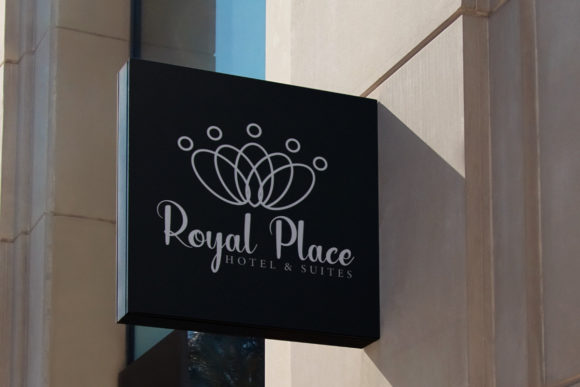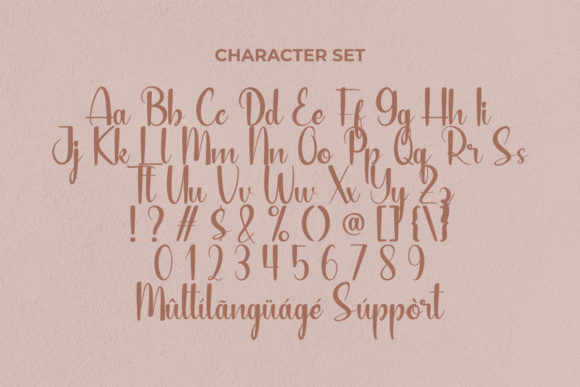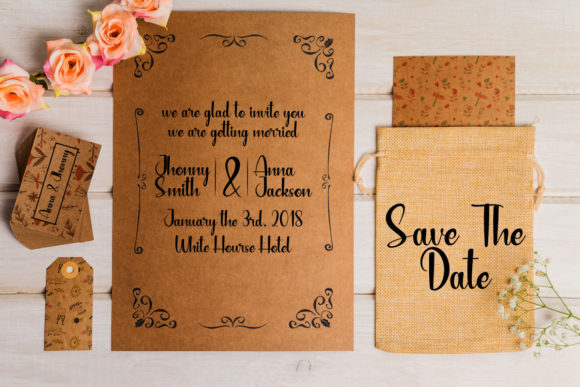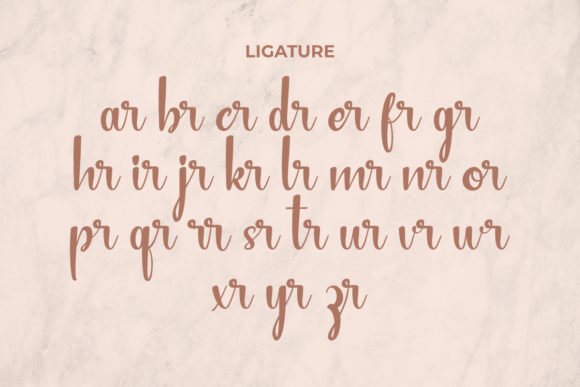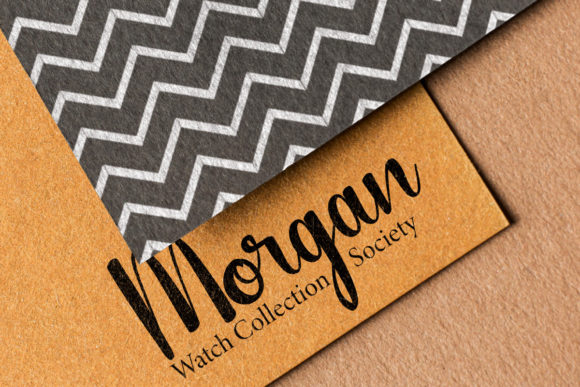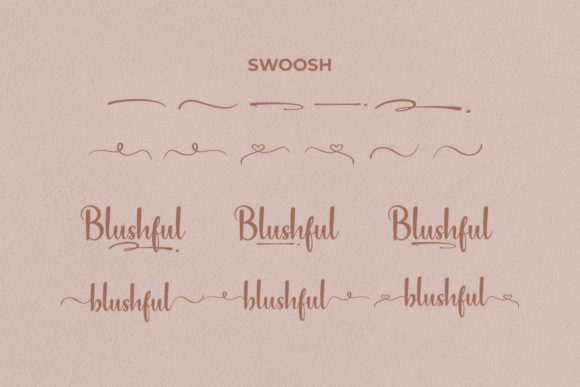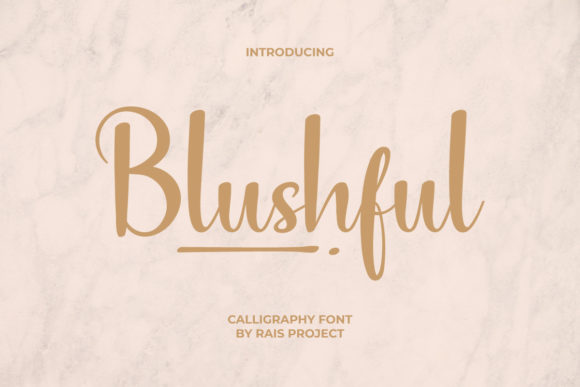
The Blushful Font: A Timeless Choice for Charming Designs
An Honest Review of Blushful Font
- ✨ The Blushful font is a beautifully crafted, handwritten font that adds a touch of elegance to any design.
- ✅ It’s PUA encoded, making it easy to access all the glyphs and swashes.
- 💫 The font has a wide range of uses, from wedding invitations and branding to social media graphics and more.
- 👍 The font is highly legible, even at smaller sizes.
While the Blushful font is an excellent choice for many designs, there are a few things to keep in mind:
- ⚠️ Some users may find the font a bit too ornate for very formal or corporate designs.
- 🤔 The font’s handwritten nature means it may not be the best choice for very long blocks of text.
The Story Behind Blushful Font
The Blushful font was designed with the intention of creating a beautiful, handwritten font that would add a touch of elegance to any design. The designer drew inspiration from classic handwritten fonts, with a focus on creating a font that was both legible and charming.
| Author | RaisProject |
Q: What is the Blushful font?
A: The Blushful font is a classic, handwritten font designed for use in a wide range of designs, from wedding invitations to social media graphics.
Q: Is the Blushful font PUA encoded?
A: Yes, the Blushful font is PUA encoded, making it easy to access all the glyphs and swashes.
Q: What are some common uses for the Blushful font?
A: The Blushful font is commonly used for wedding invitations, social media graphics, branding, and advertising.